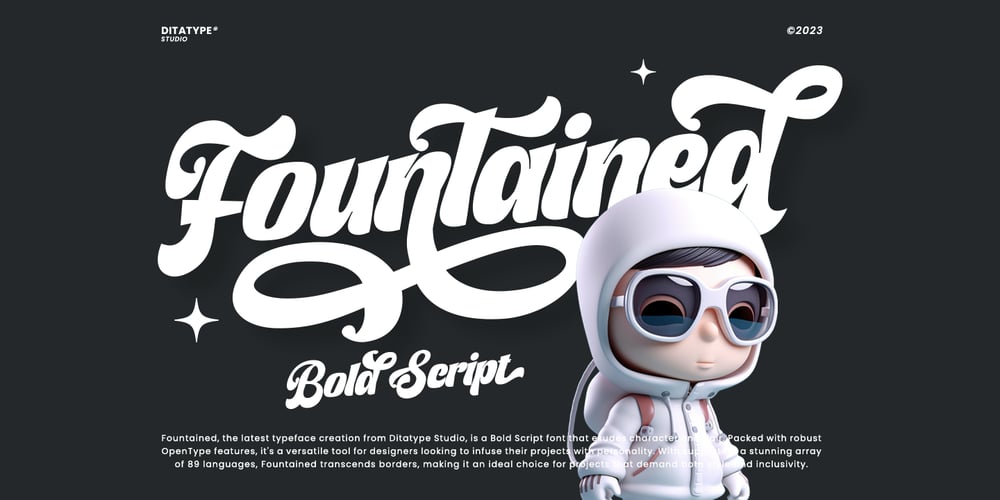
Fountained Font Family was designed by Donis Miftahudin and published by Ditatype. Fountained contains 1 styles and family package options. Fountained is a luxurious script font that beautifully marries sophistication with a touch of playful elegance. The characters in Fountained boast a generous thickness, making each stroke exude opulence and a sense of grandeur. The swinging ends, resembling graceful flourishes, bring a touch of movement and style to the font, ensuring that Fountained stands out as a distinctive script font. Enjoy the features here.Features: Ligatures Stylistic Sets Multilingual Supports PUA Encoded Numerals and Punctuations Fountained fits in headlines, logos, posters, flyers, branding materials, greeting cards, print media, editorial layouts, and many more designs. Find out more ways to use this font by taking a look at the font preview.Thanks for purchasing our fonts. Hopefully, you have a great time using our font. Feel free to contact us anytime for further information or when you have trouble with the font. Thanks a lot and happy designing.